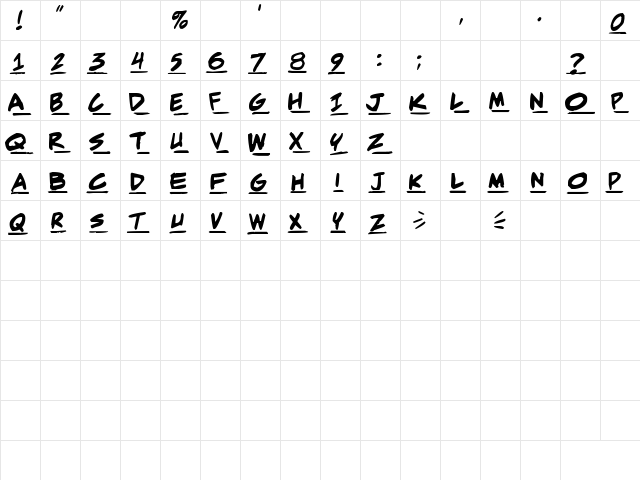
Adam Warren pro Bold Italic Font Preview
| Designer | Andeh Pinkard |
Design Context for Adam Warren pro Typeface
Adam Warren pro is a composed and adaptable typeface that performs quietly and consistently across a wide range of design contexts. The dynamic lean of this cut emphasises speed and emphasis in any layout. The heavy weight commands attention and anchors typographic hierarchies.
Pro Tip: Try Adam Warren pro for annotation and caption copy alongside an upright companion — the contrast in angle creates a dynamic but ordered typographic system.